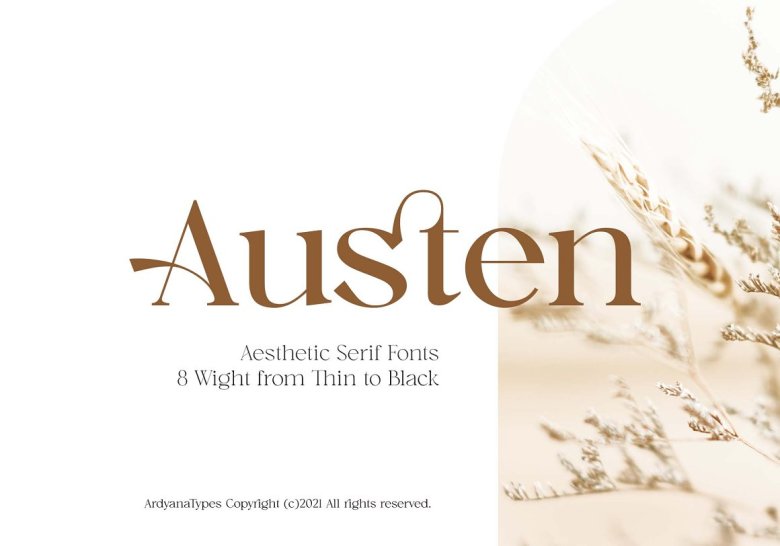
Austen Font
With Austen Font the script is very elegant in style, whilst the serif-type tagline is modern and very smooth. With 8 weights (from Thin to Black), this font is made for you Austen also brags the latest work characteristics that can put a smooth and stunning face for your company or project in professional uses as well. It is well suited for combinations such as modern serifs and scripts depictured or it stands on its own as a large headline and the representative tone for a brand seeking a sophisticated appearance.
Austen also offers multi-languages which is beneficial for those based anywhere in the world and for businesses operating in more than one country. It also includes Alternate Ligatures and stylistic set to give your designs more personalisation. Austen is perfect for branding projects as well such as business cards, name tags, or uniforms as an iconic brand addition. Advertising, Posters, invitations, Branding, Logo or magazines, Merchandising, Presentation, etc.
Austen Serif Font